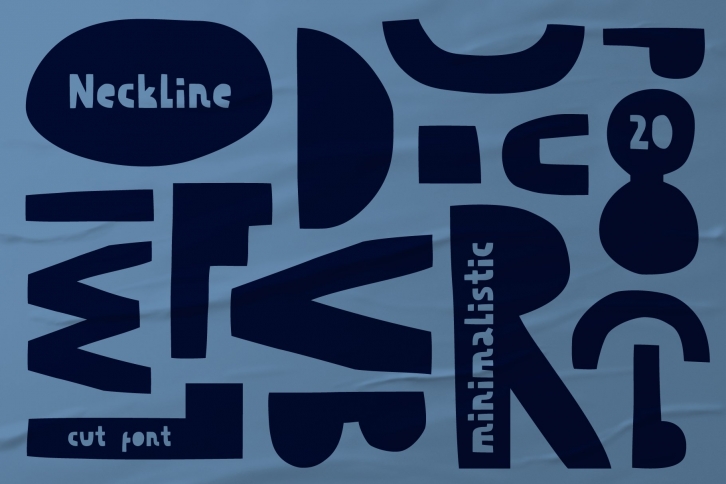
Decorative minimalistic cut out is a trendy and unique font with an authentic style. It was designed by Vyacheslav Kolb and it's a great choice for creative people who need such a font. It was released on January 5, 2021 and the file size is 9.22 MB. Decorative minimalistic cut out will add an organic vibe to any design idea!